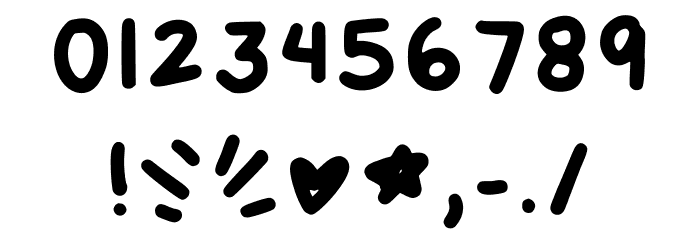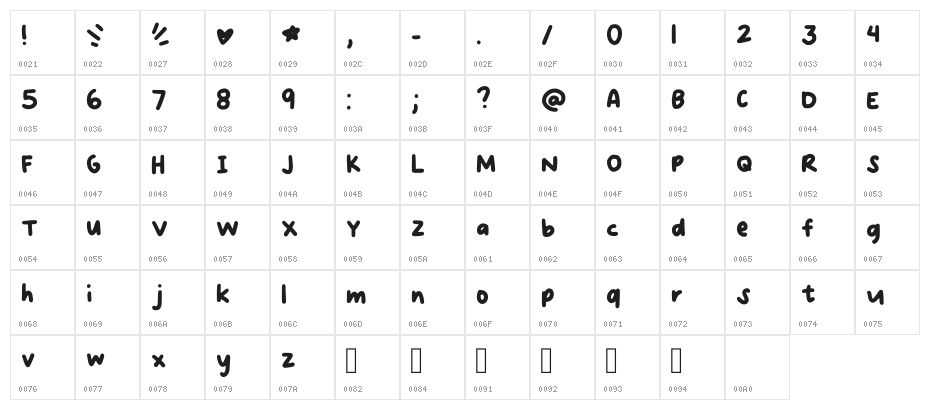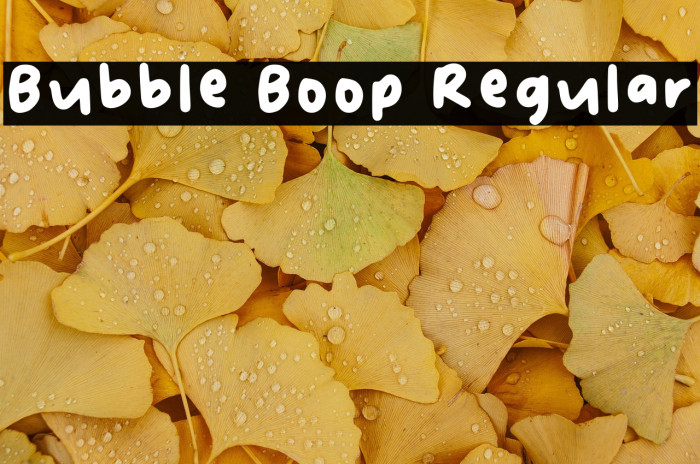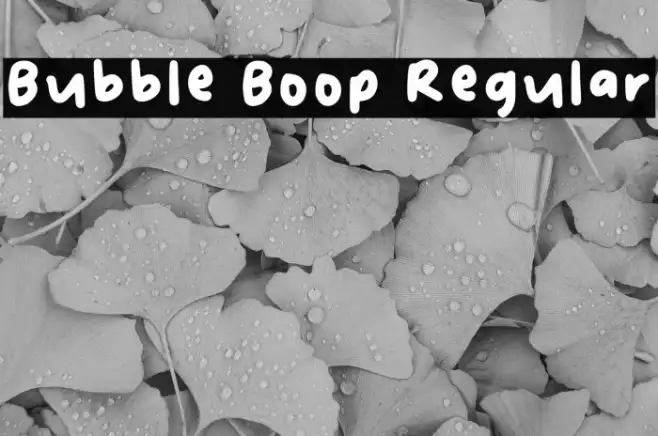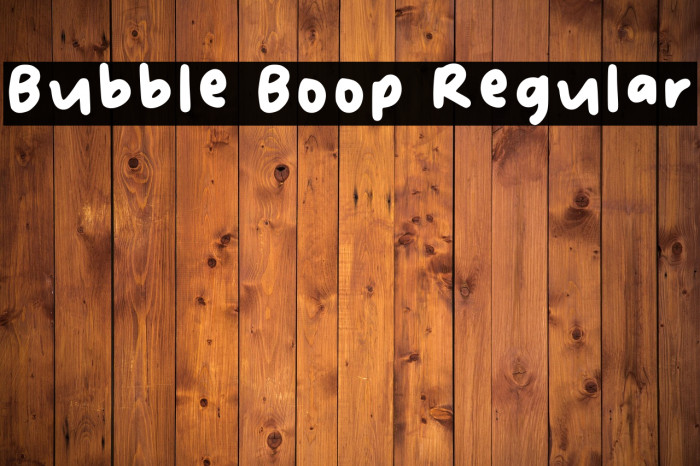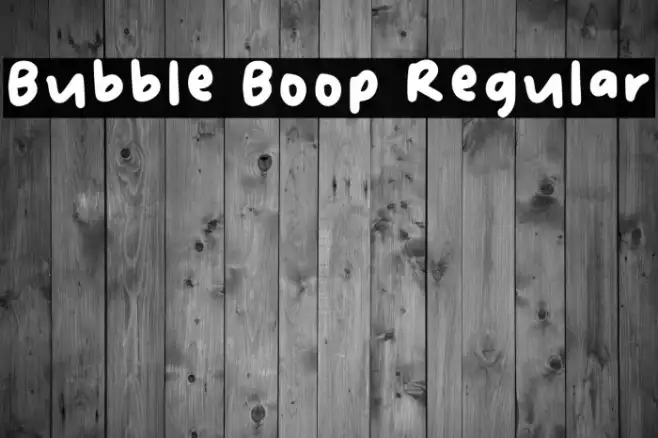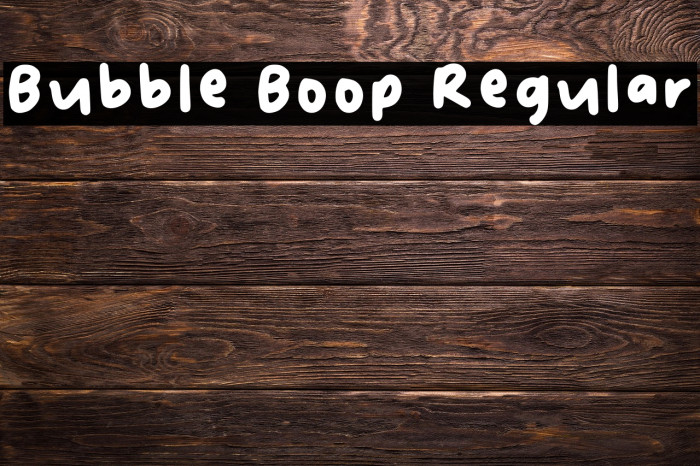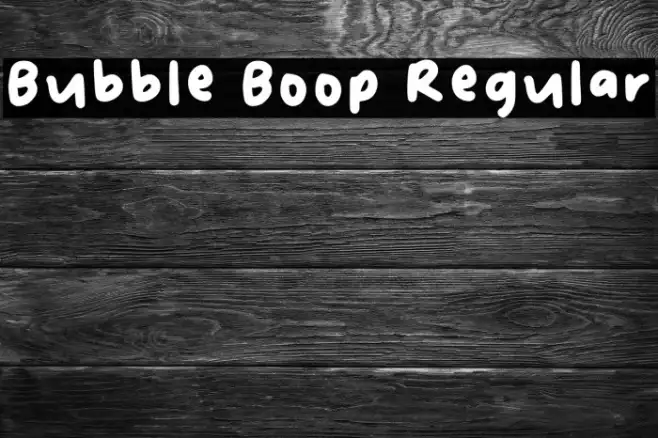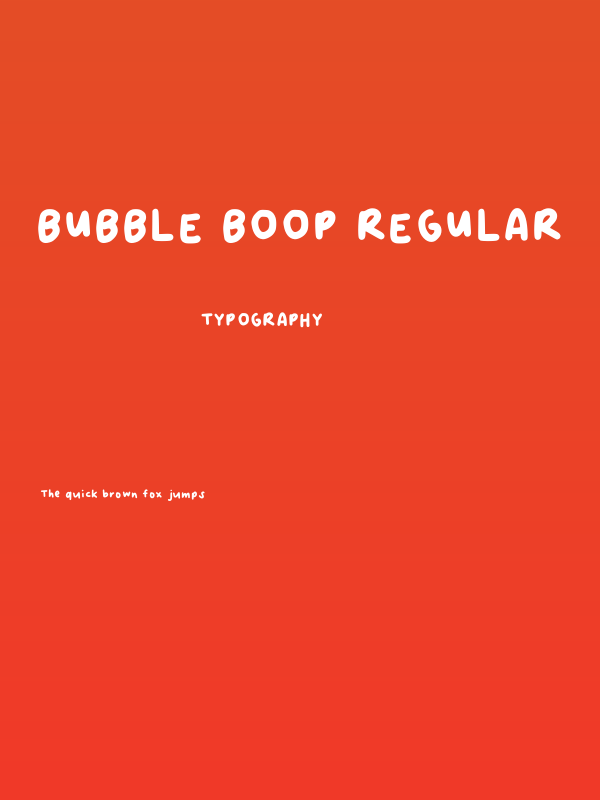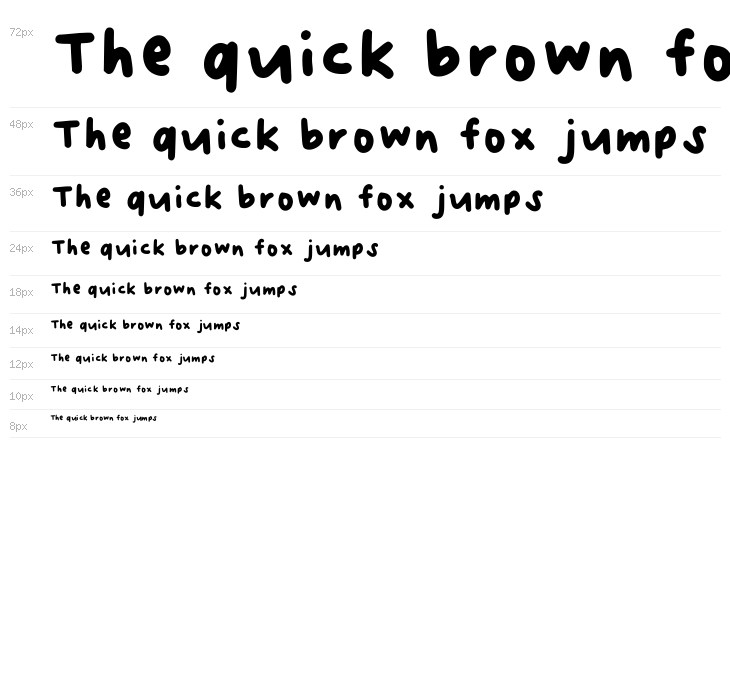
Bubble Boop Regular Font
Bubble Boop Regular Description
This playful and whimsical font features rounded, bubbly characters that exude a sense of fun and creativity. Each letter is crafted with a smooth, bold stroke, giving it a friendly and approachable appearance. The font maintains a consistent weight throughout, with a slightly irregular baseline that adds to its charm. The characters are evenly spaced, ensuring readability while maintaining a casual, informal style. This font is perfect for projects that require a touch of personality and lightheartedness, such as children's books, playful branding, or creative invitations. Its unique style makes it stand out, capturing attention with its joyful and lively design.
Overall StylePlayful, Whimsical
Use CaseHeadlines, Logos, Creative projects
Proposed ProjectsIdeal for children's books, playful branding, creative invitations, and casual designs.